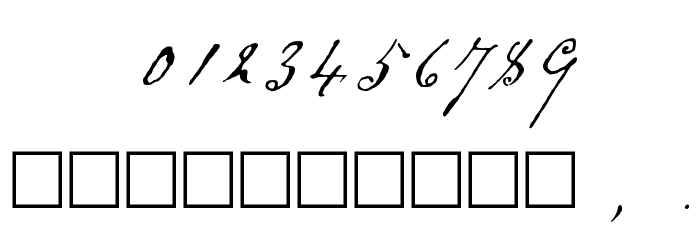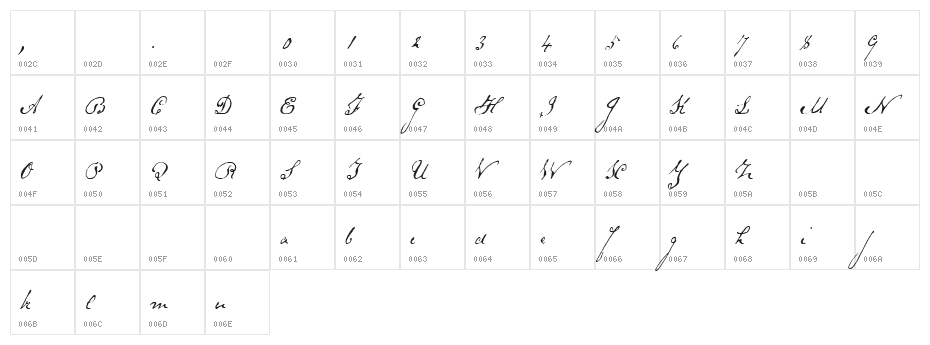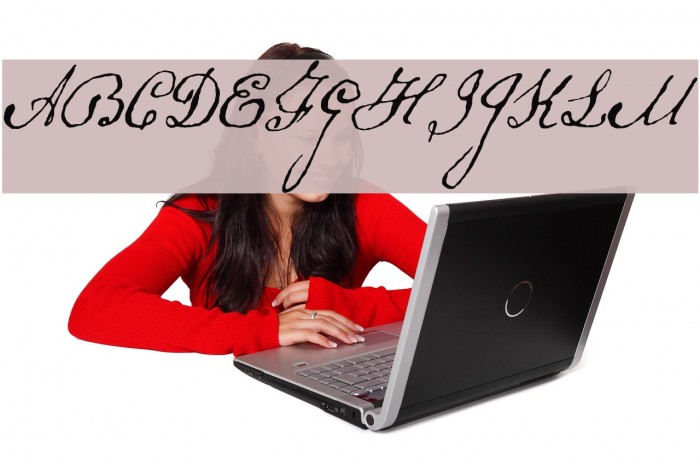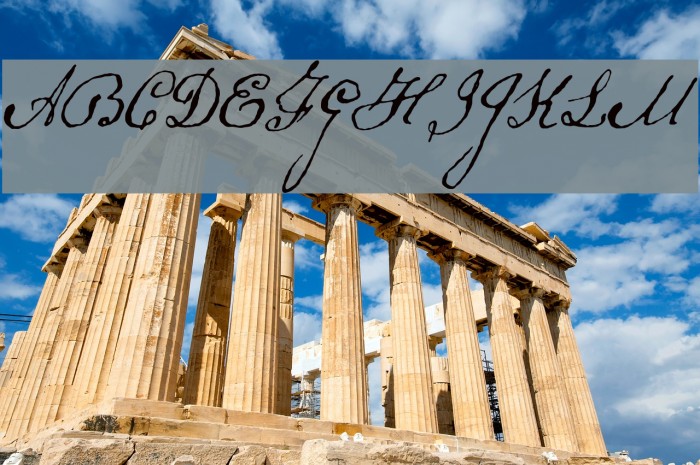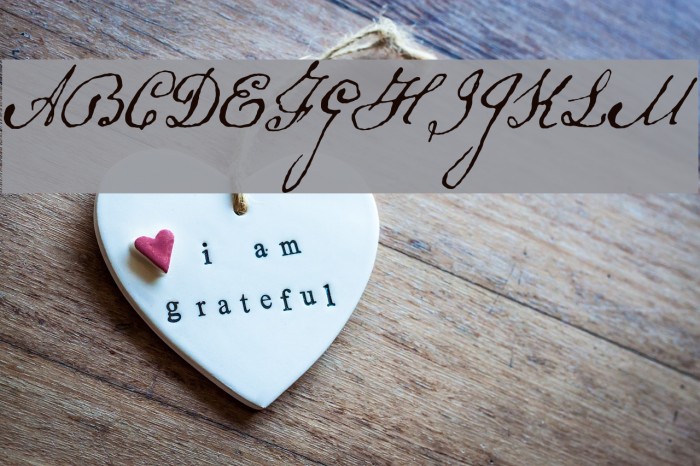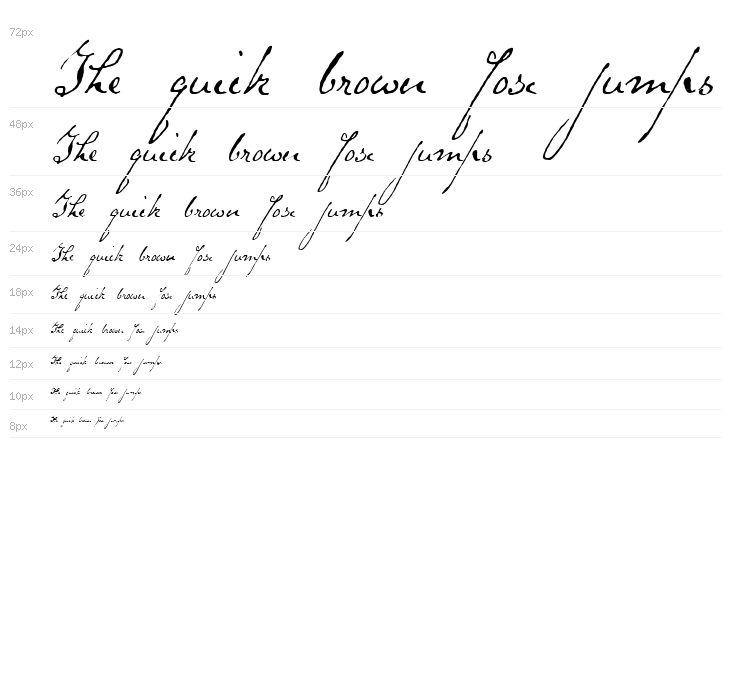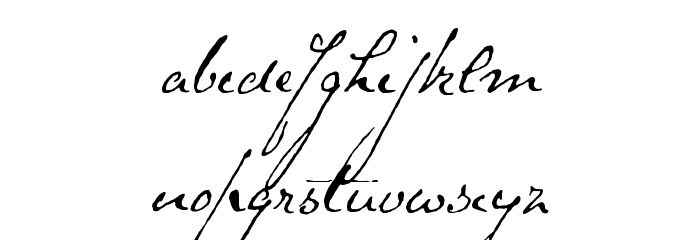
Schoon Font
Schoon Description
This elegant script font features a flowing, cursive style with intricate loops and flourishes. The uppercase letters are ornate, with sweeping ascenders and descenders that give a sense of movement and grace. The lowercase letters maintain a consistent slant, enhancing the font's fluidity and elegance. Numbers are styled to match the script's overall aesthetic, with a slight slant and decorative elements. This font exudes a classic and sophisticated feel, making it ideal for formal invitations, certificates, and branding that requires a touch of elegance.
| Use Case | Invitations, Certificates, Branding |
| Proposed Projects | Ideal for wedding invitations, formal event programs, elegant branding, and certificates. |